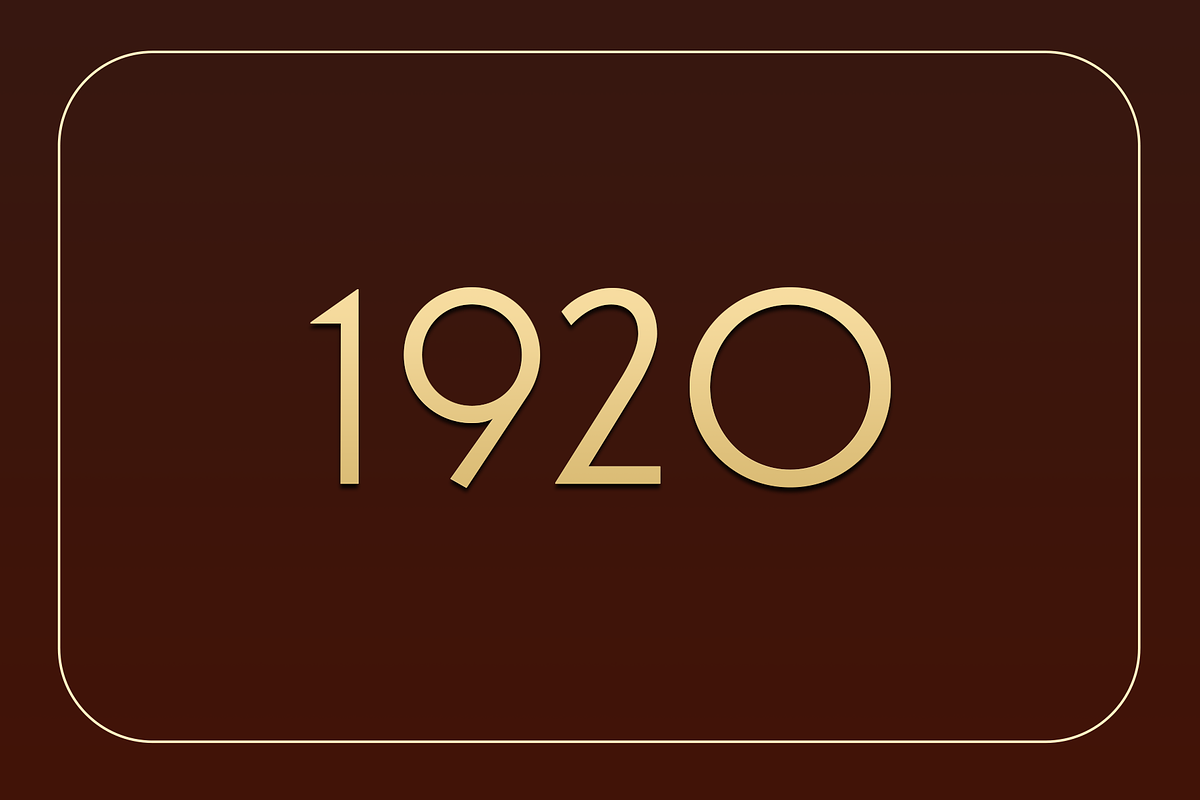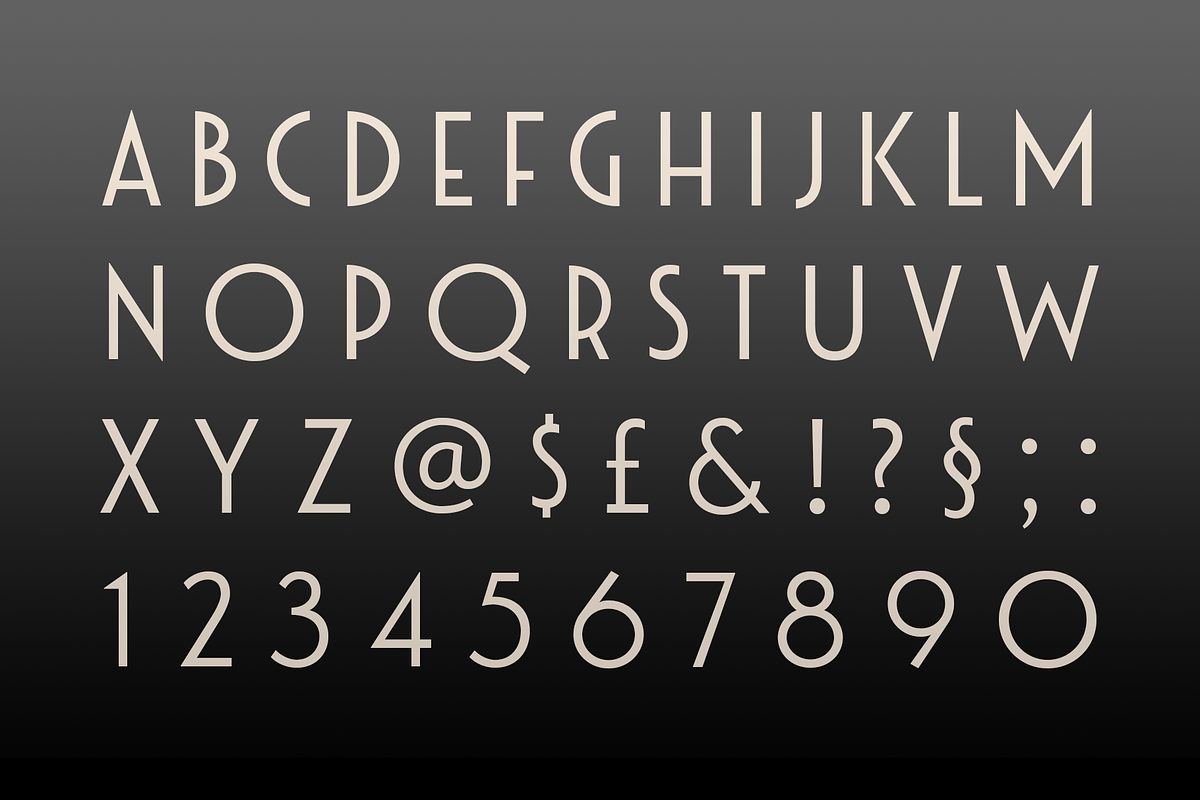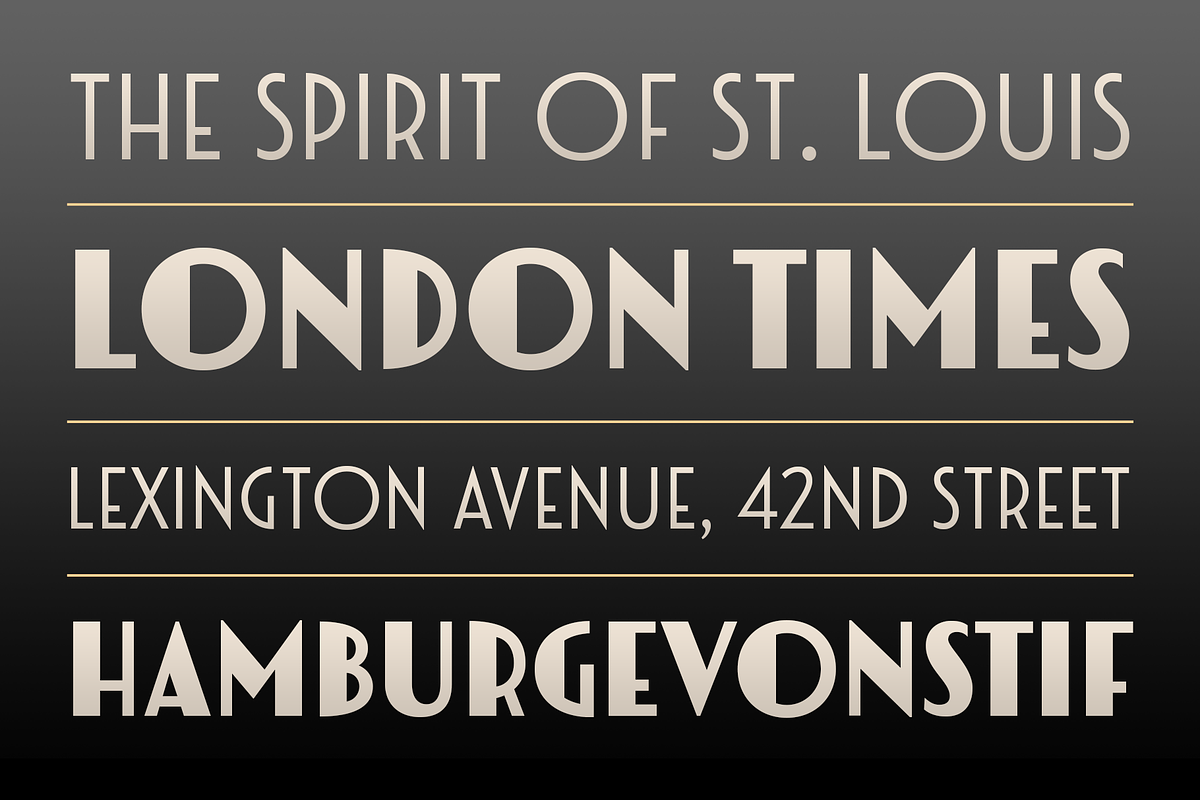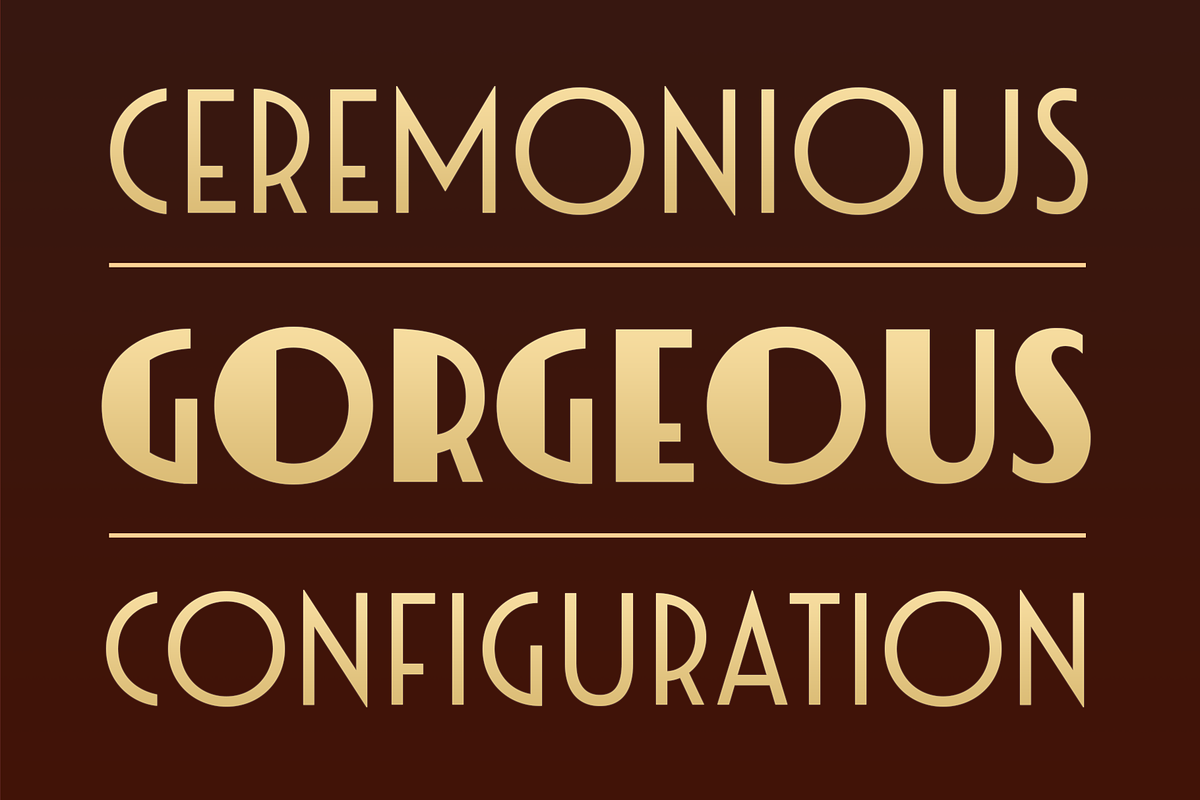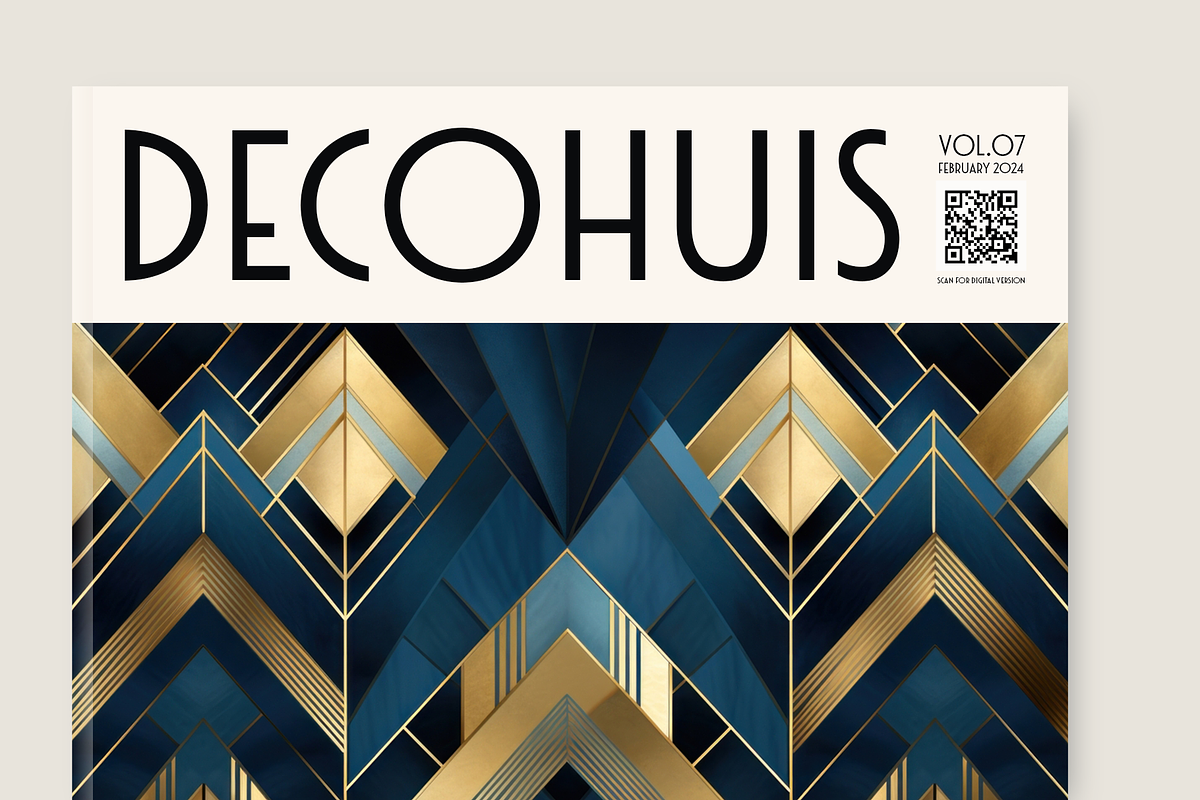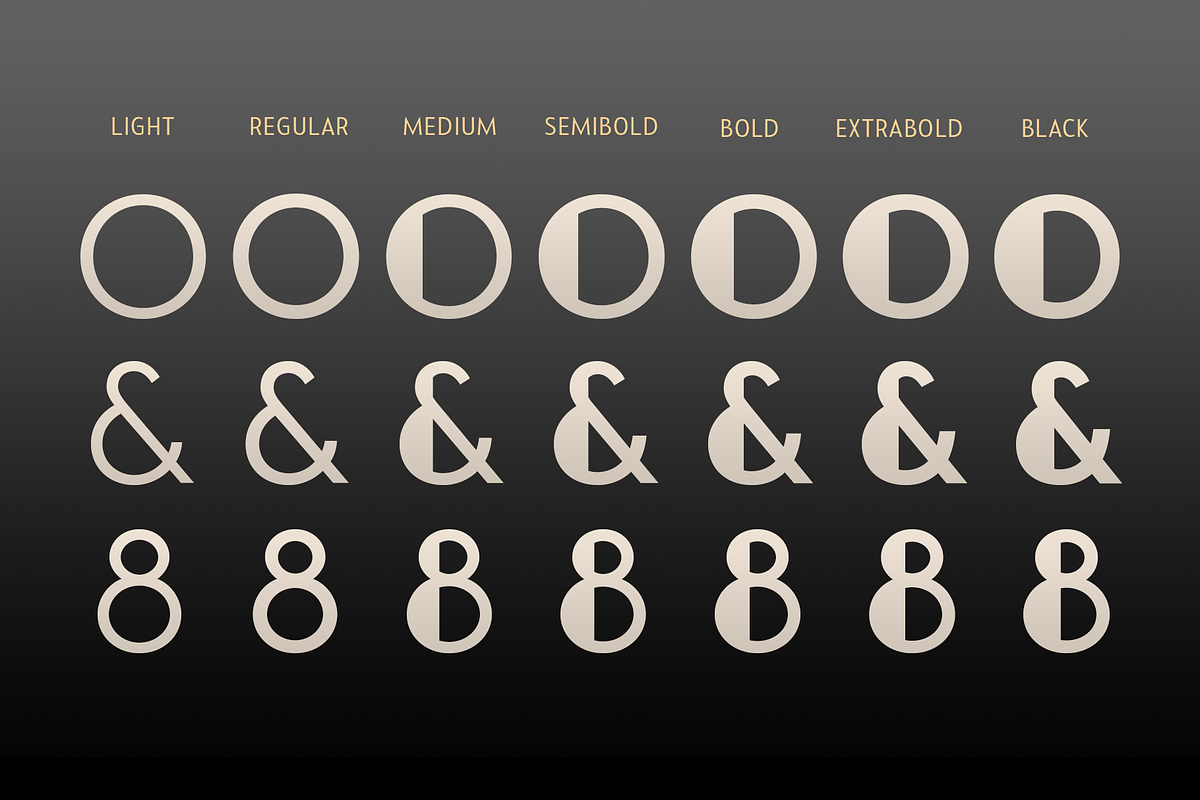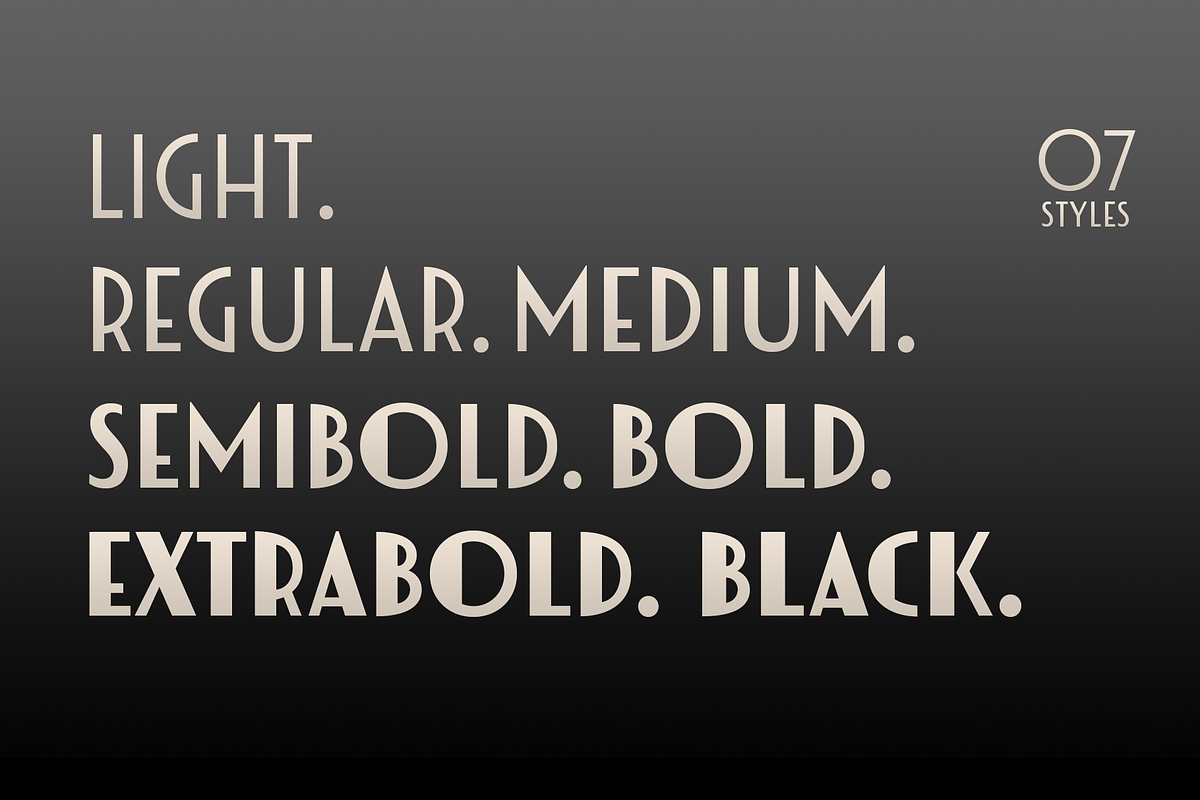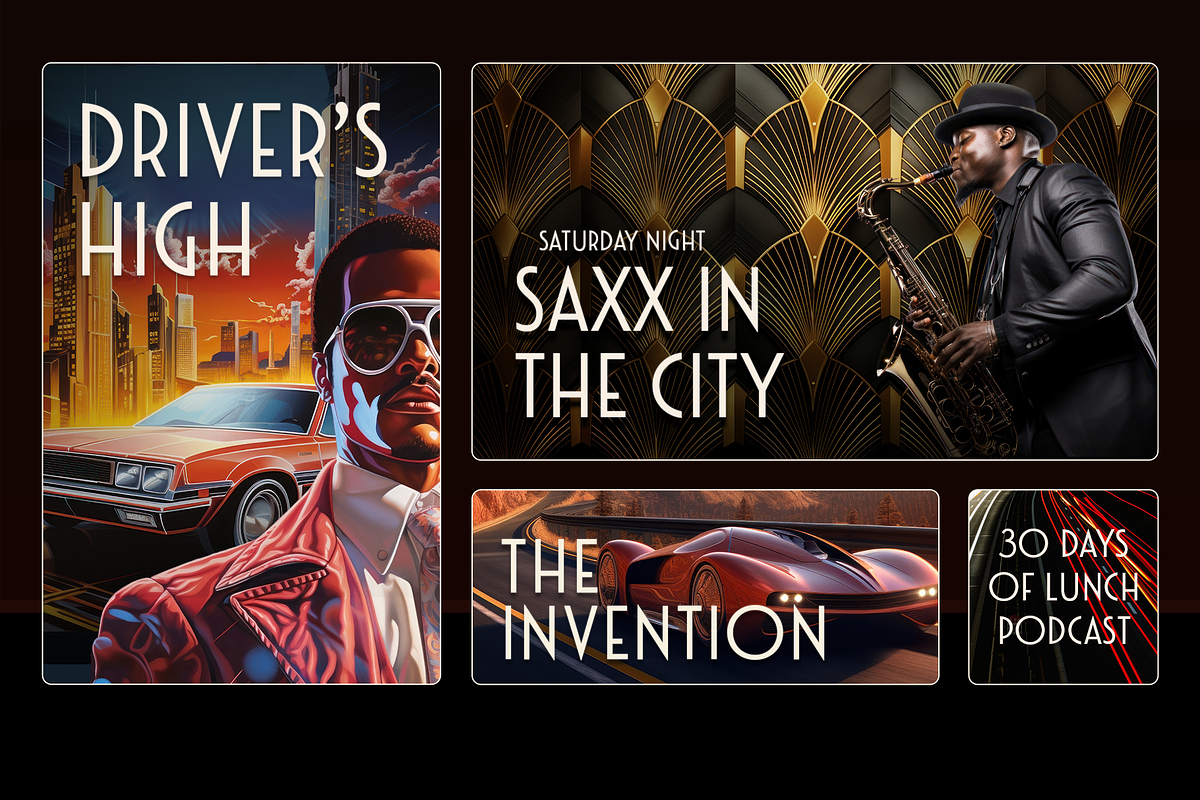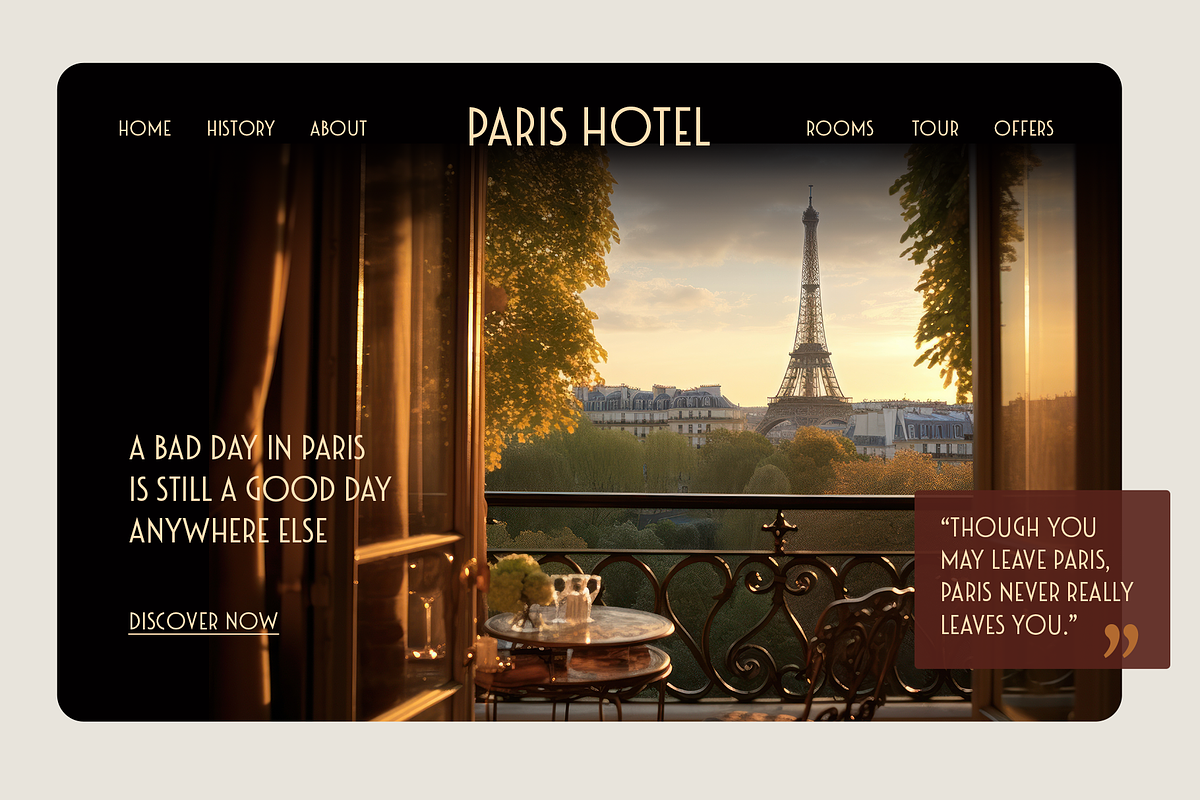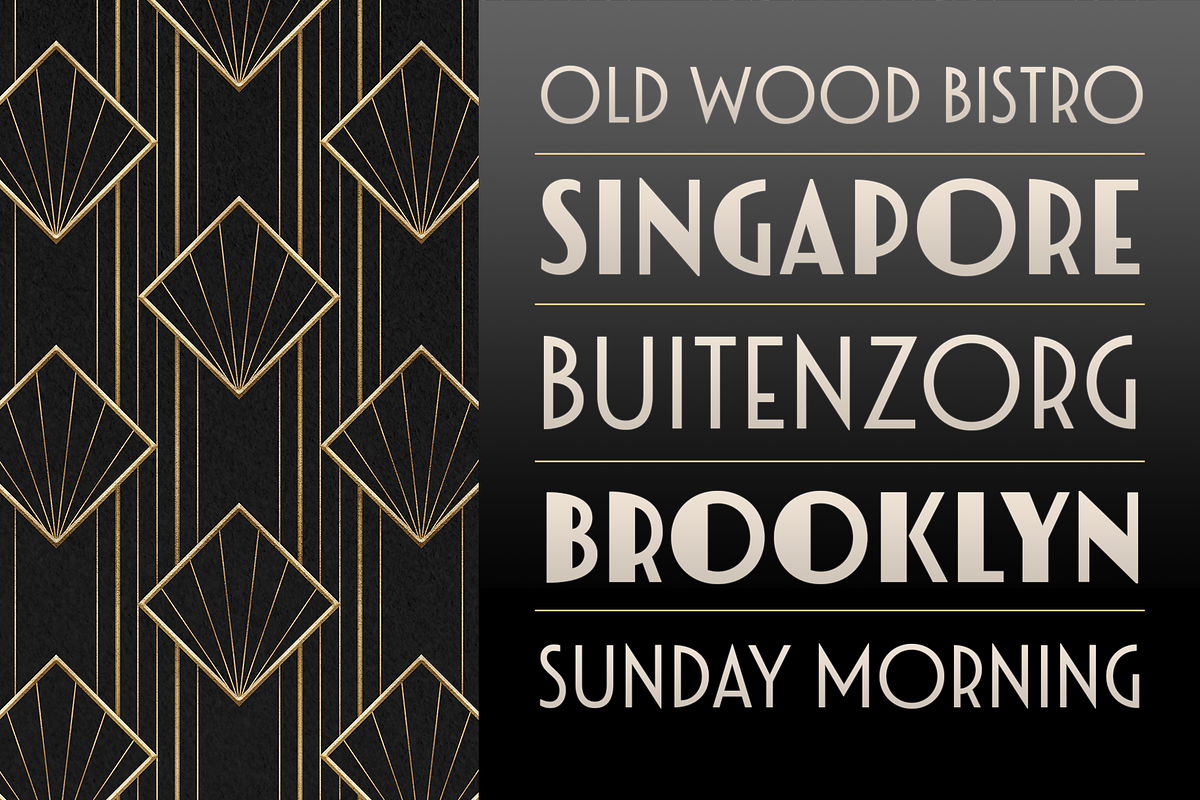
Luks Deco
Luks Deco took inspiration from the glory of Roaring 20’s when the Art Deco style rose to its heyday. The strong geometric shape emphasizes the touch of retro yet modern style. Luks Deco is a good choice for graphic designers who want to give Art Deco vibes to their designs.
Luks Deco’s weight range from light to black, suitable to cater of all you need. The O,C,G and Q letters (and all glyphs that have circle form) have a bit different shape from light to black which will give unique display look for overall design.